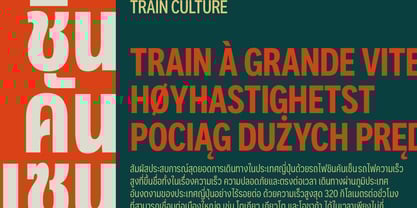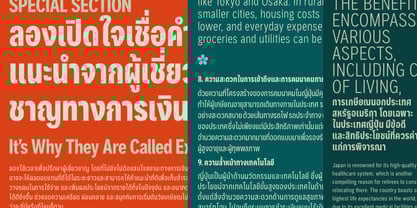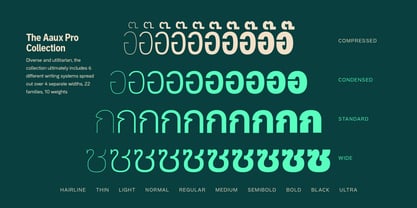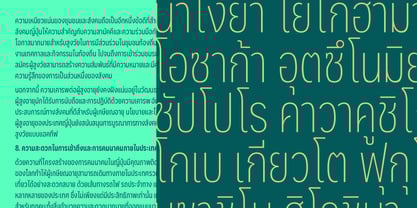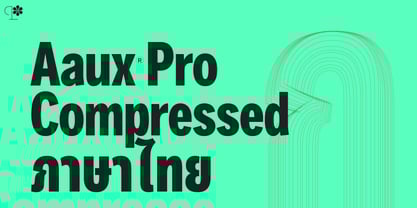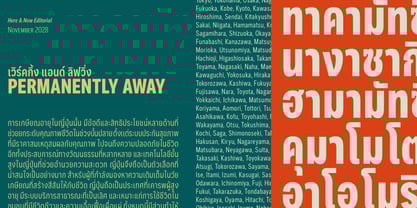
Aaux Pro Thai Compressed
by Positype
The Aaux Pro Thai Compressed Font Family was designed by Neil Summerour, Potch Auacherdkul and published by Positype. Aaux Pro Thai Compressed contains 10 styles and family package options. More about this family
When the original Aaux was introduced in 2002, the goal was to expand its versatility. Years later, I committed to a complete redesign, redrawing each glyph from scratch for the four main subsets and their italics. This meticulous process resulted in Aaux Pro™, a super family with 378 fonts, including Compressed, Condensed, and Wide subsets, each with corresponding weights for total flexibility. All original weight variants are integrated into the OpenType format, featuring Small Caps, Old Style Figures, tabular figures, numerators and denominators, expanded f-ligatures, and a complete Central European character set.
Aaux Pro™ has been further expanded to support a variety of scripts, including Arabic, Cyrillic, Greek, Korean, and Thai. This extensive script coverage ensures that Aaux Pro™ maintains its versatility and accessibility across different languages and cultural contexts. The typeface combines precision with warmth, balancing assertiveness and friendliness, making it an ideal choice for global brands and multilingual projects.
Designers: Neil Summerour, Potch Auacherdkul
Foundry: Positype